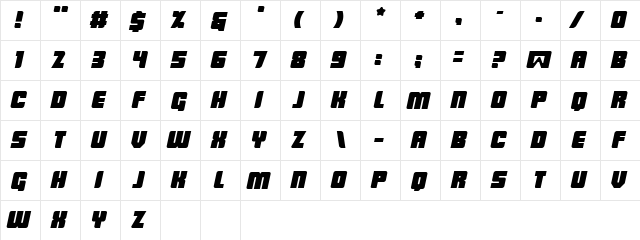
LowRider BB Italic
Design Context for LowRider BB Typeface
LowRider BB is a composed and adaptable typeface that performs quietly and consistently across a wide range of design contexts. Its italic angle brings a sense of urgency and motion to the letterforms.
Pro Tip: Use LowRider BB for emphasis, pull quotes, and subheadings where its slanted energy can add rhythm to the layout.